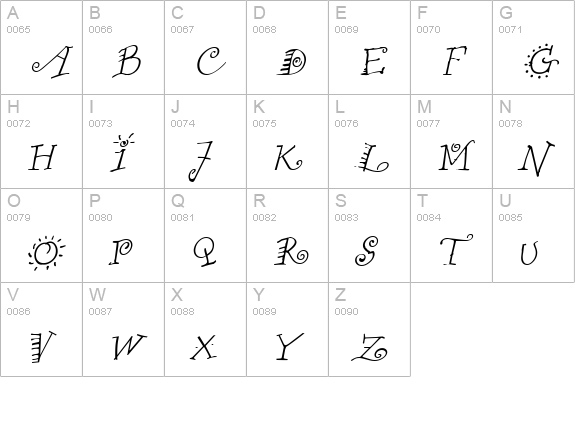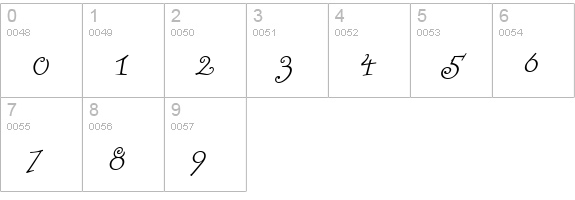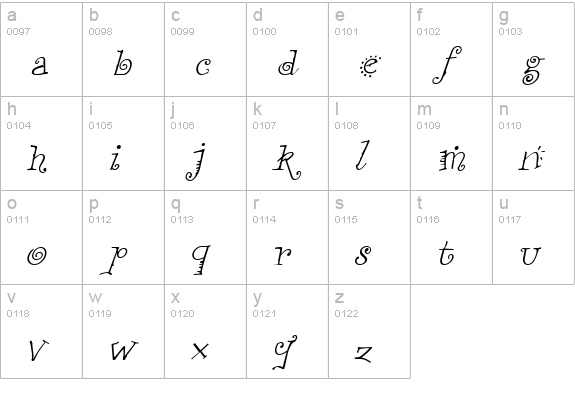
Funstuff Italic Font Details
Funstuff Italic is a distinctive, italic variant in the Funstuff typeface family \xE2\x80\x94 well suited to design and typography projects.
Funstuff Italic font is a playful and whimsical typeface that adds a touch of fun to any design project. With its slanted and italicized characters, this font exudes a sense of energy and creativity. Whether you're designing invitations, posters, or social media graphics, Funstuff Italic is sure to catch the eye and bring a smile to your audience. The best part? Funstuff Italic font is completely free to download at FontsMarket.com. You can easily add this unique and lively font to your collection without breaking the bank. So why wait? Download Funstuff Italic today and let your creativity shine!